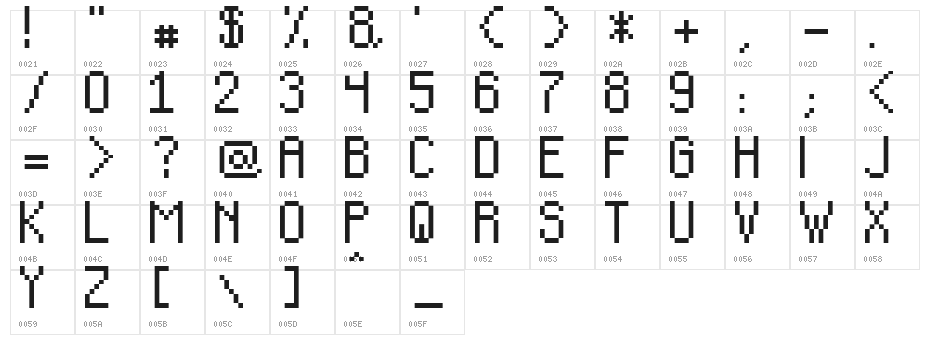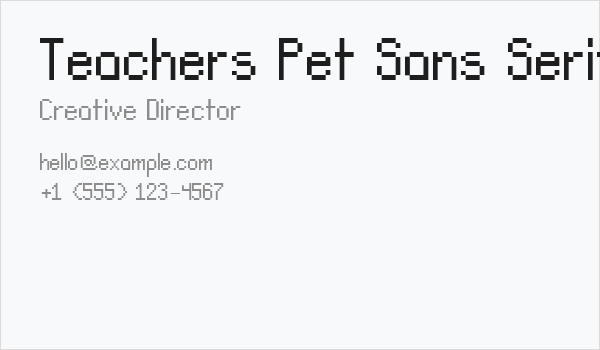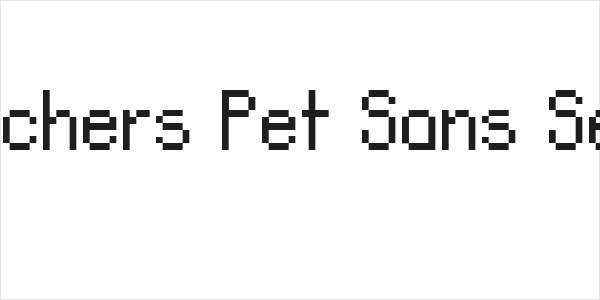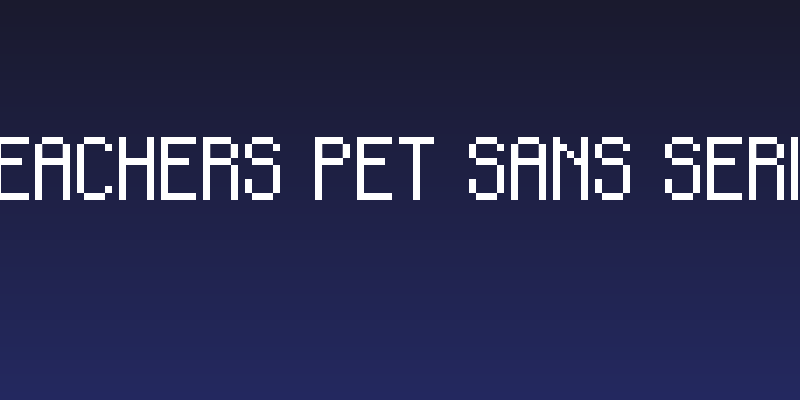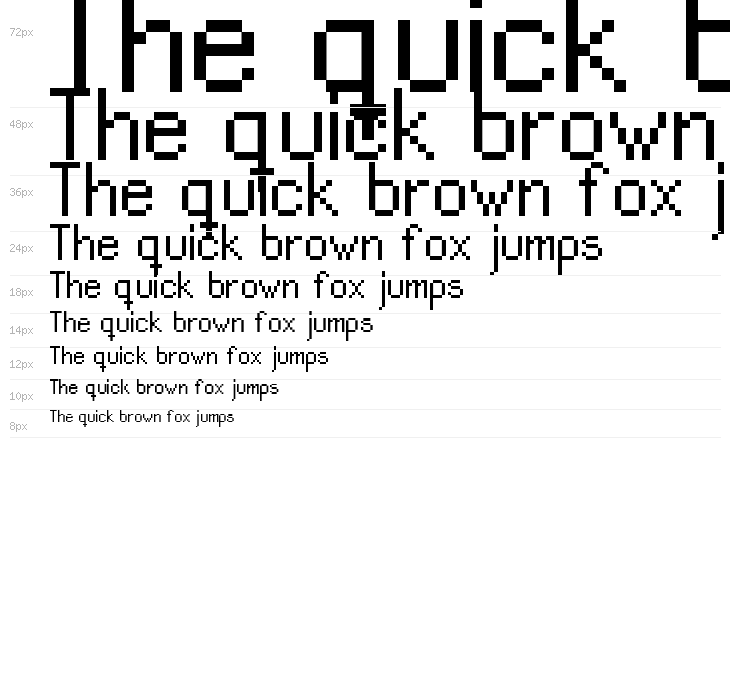
Teachers Pet Sans Serif Font
Teachers Pet Sans Serif Description
This font features a pixelated, blocky style reminiscent of early digital displays and retro video games. Each character is constructed with a grid-like precision, giving it a distinctly digital and geometric appearance. The uppercase and lowercase letters maintain a consistent height, contributing to a uniform look. The numbers and special characters follow the same pixelated design, ensuring a cohesive aesthetic throughout. This font's unique style is both nostalgic and modern, making it suitable for projects that aim to evoke a sense of digital nostalgia or a tech-inspired theme.
| Overall Style | Retro, Digital |
| Use Case | Logos, Posters, Digital Art |
| Proposed Projects | Ideal for retro video game designs, tech-themed posters, digital art projects, and any creative work that seeks a nostalgic digital look. |